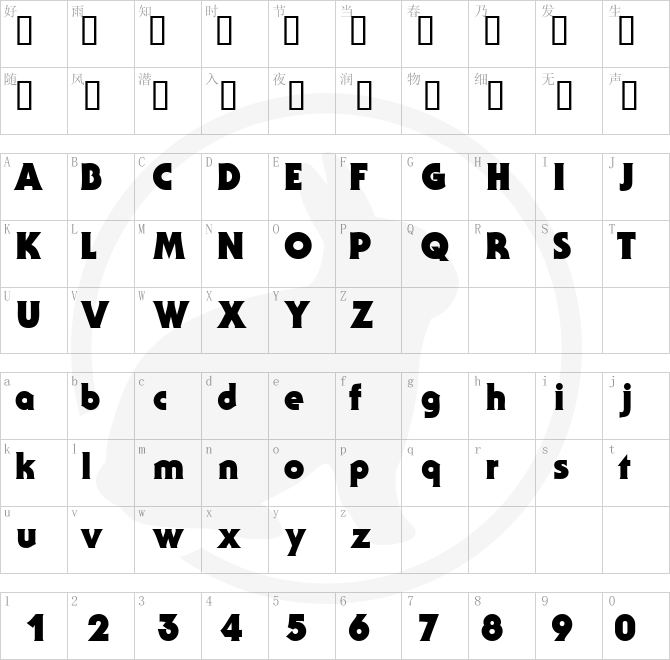
- Font Name:UbiqGothicBlackSSK
UbiqGothicBlackSSK-Bold.ttf is a very beautiful artistic font, UbiqGothicBlackSSK-Bold.ttf is widely used in the design and printing of various books and pictures,UbiqGothicBlackSSK-Bold.ttf has a strong visual impact,UbiqGothicBlackSSK-Bold.ttf is a commonly used font in newspapers, magazines and books, and is used in posters, e-commerce Poster design, store design, logo design, font design and other fields.UbiqGothicBlackSSK-Bold.